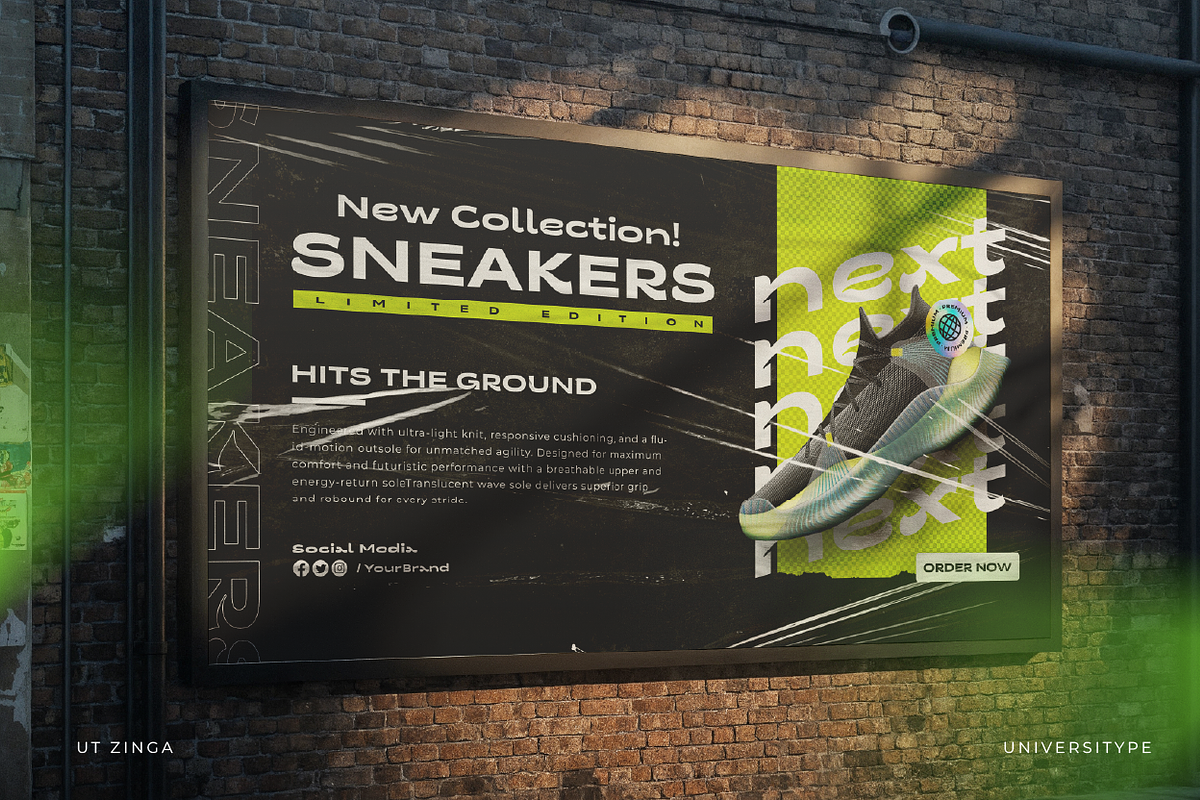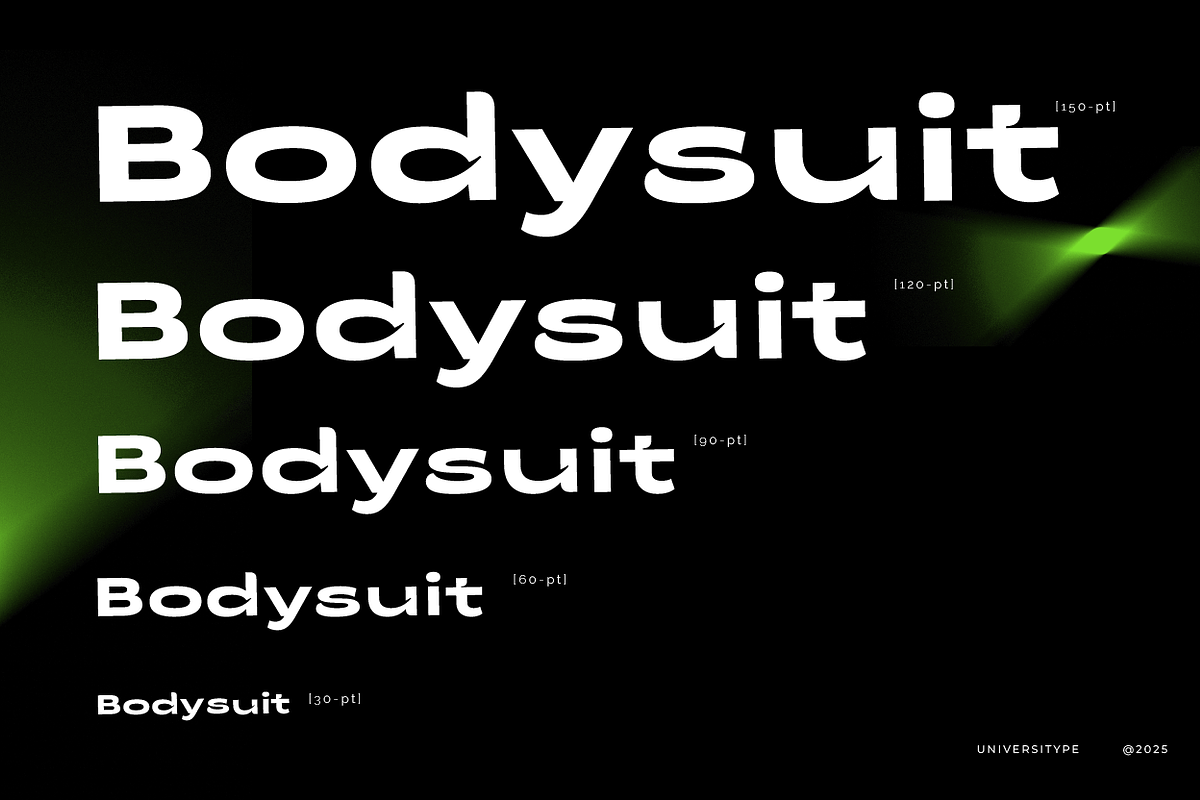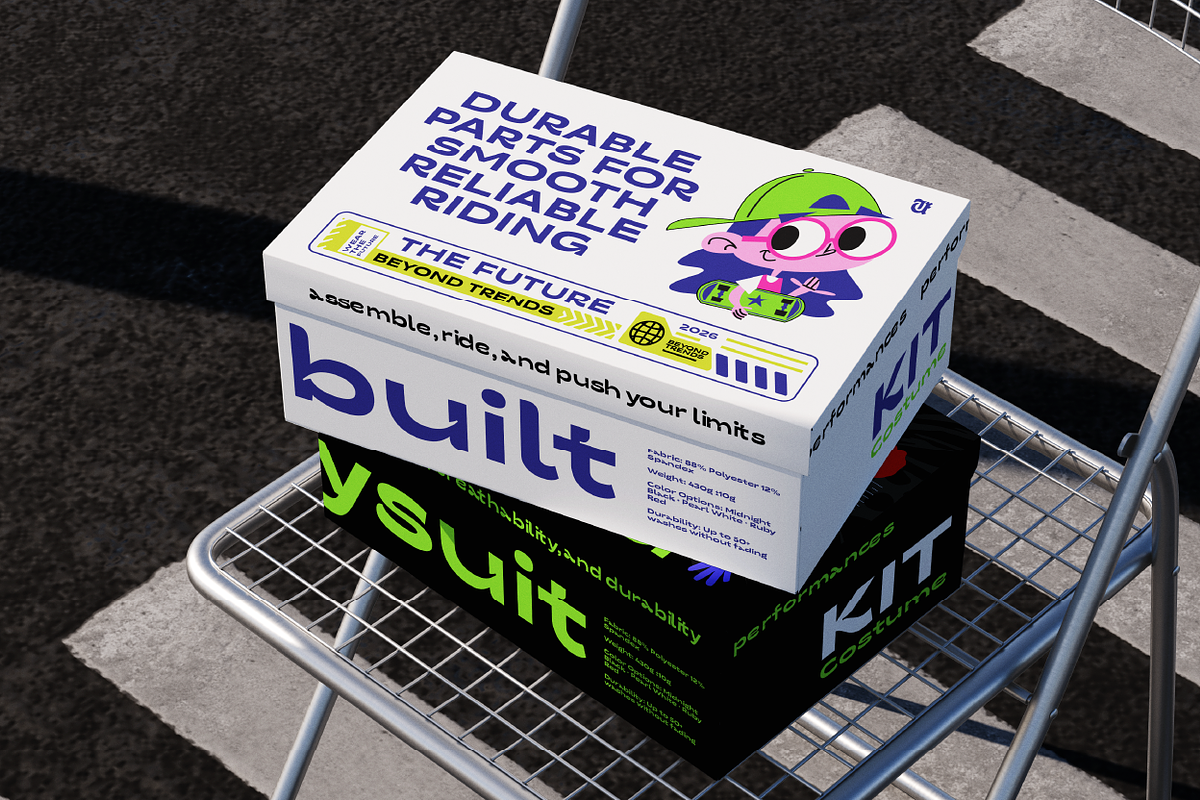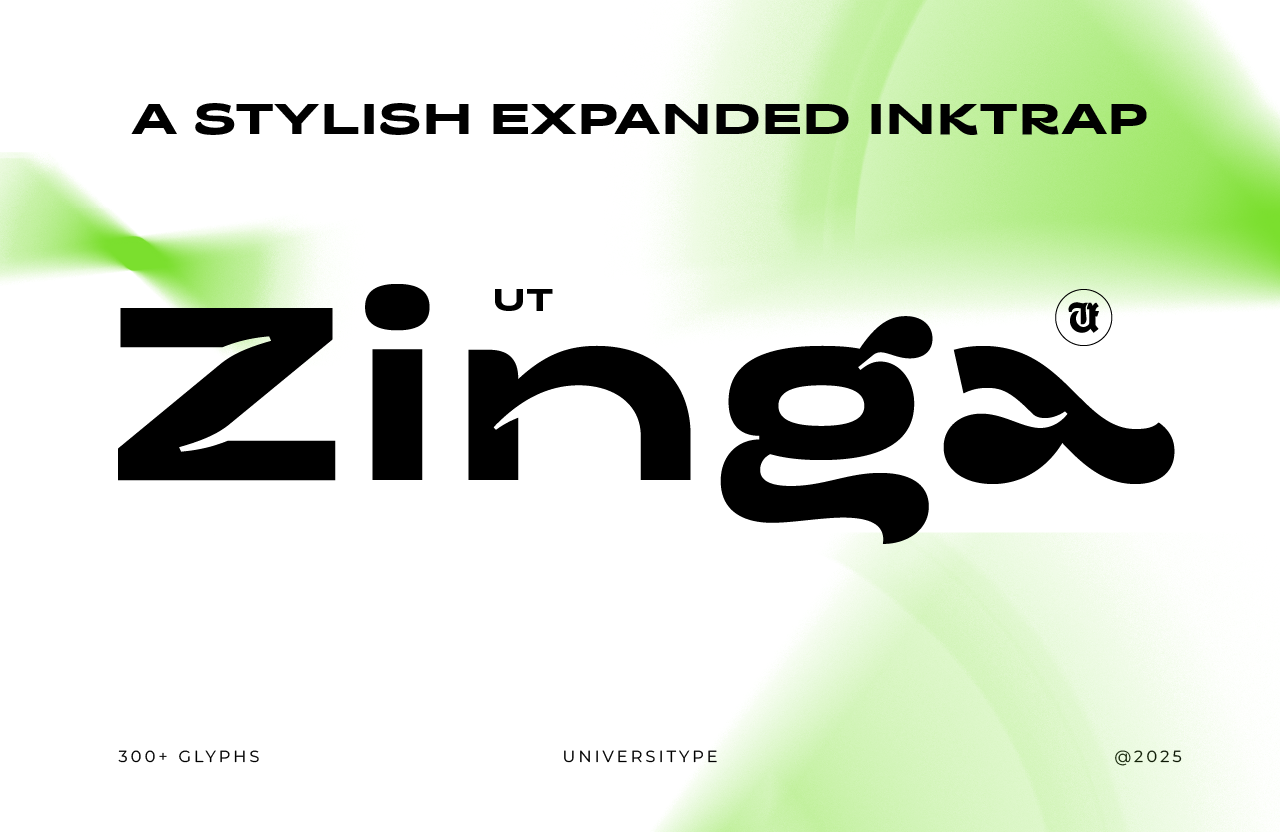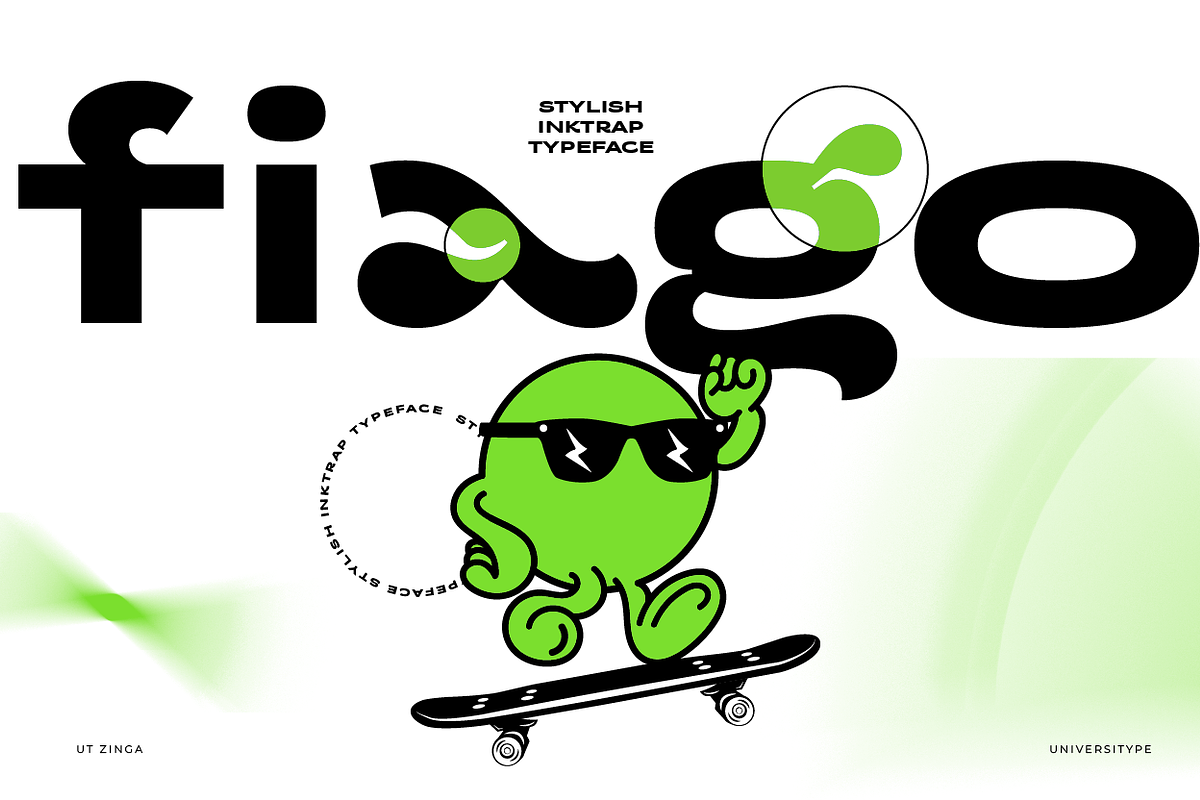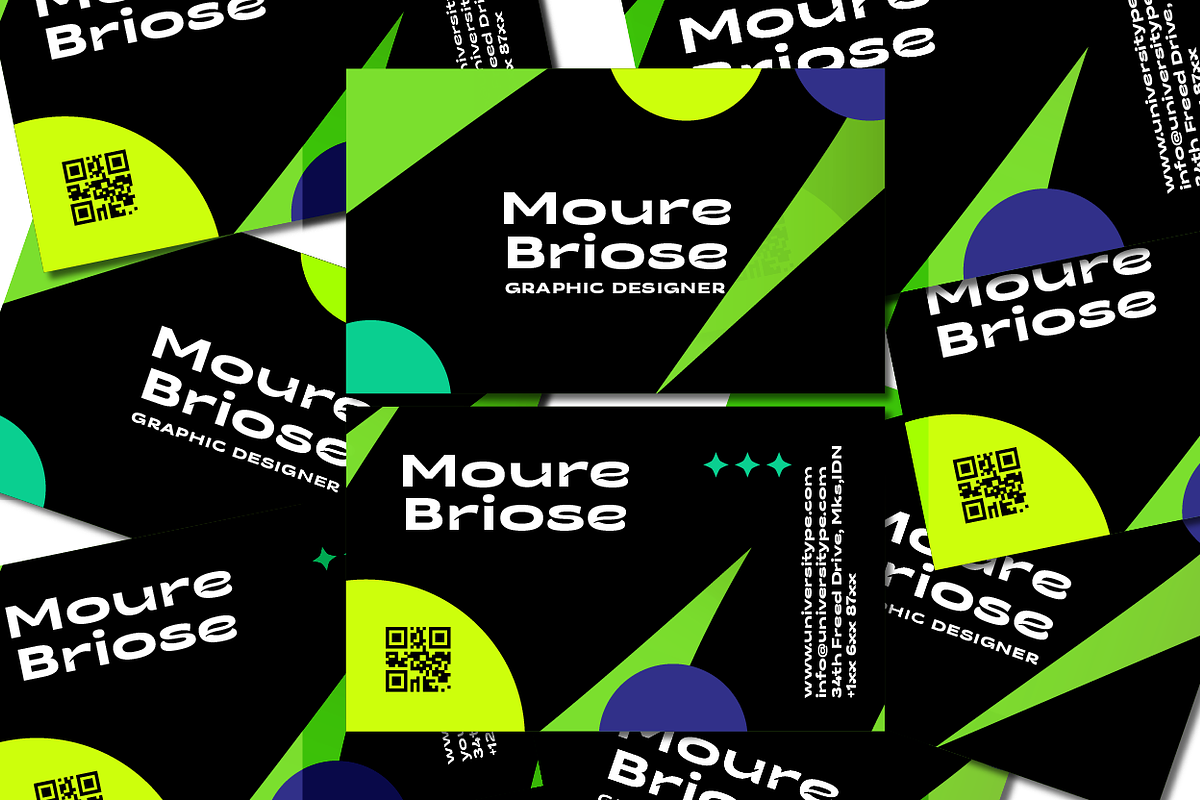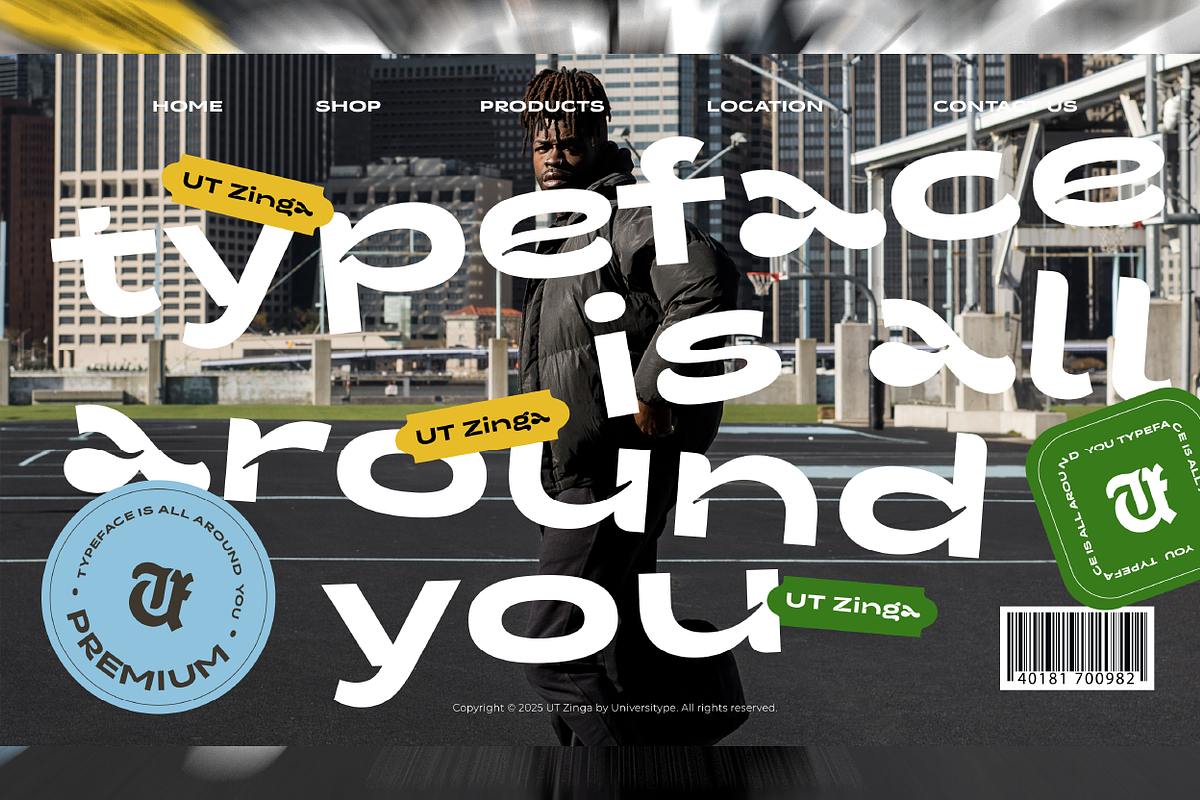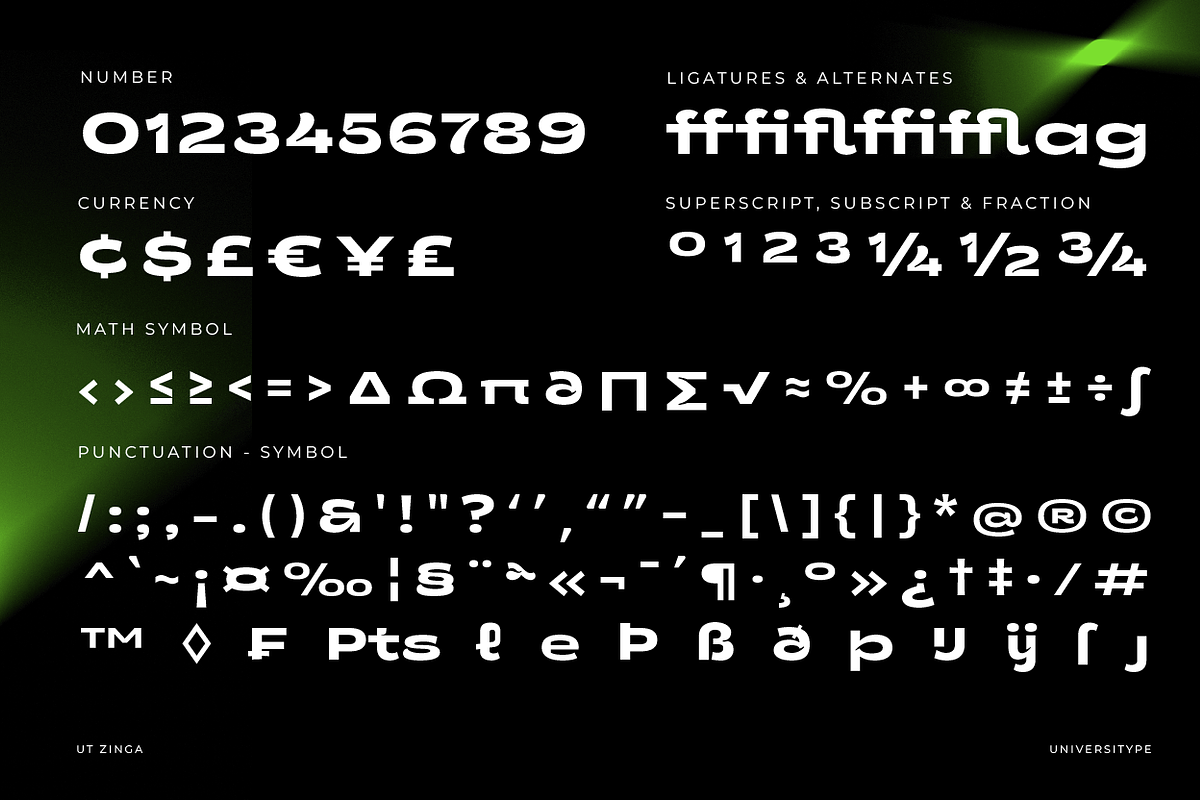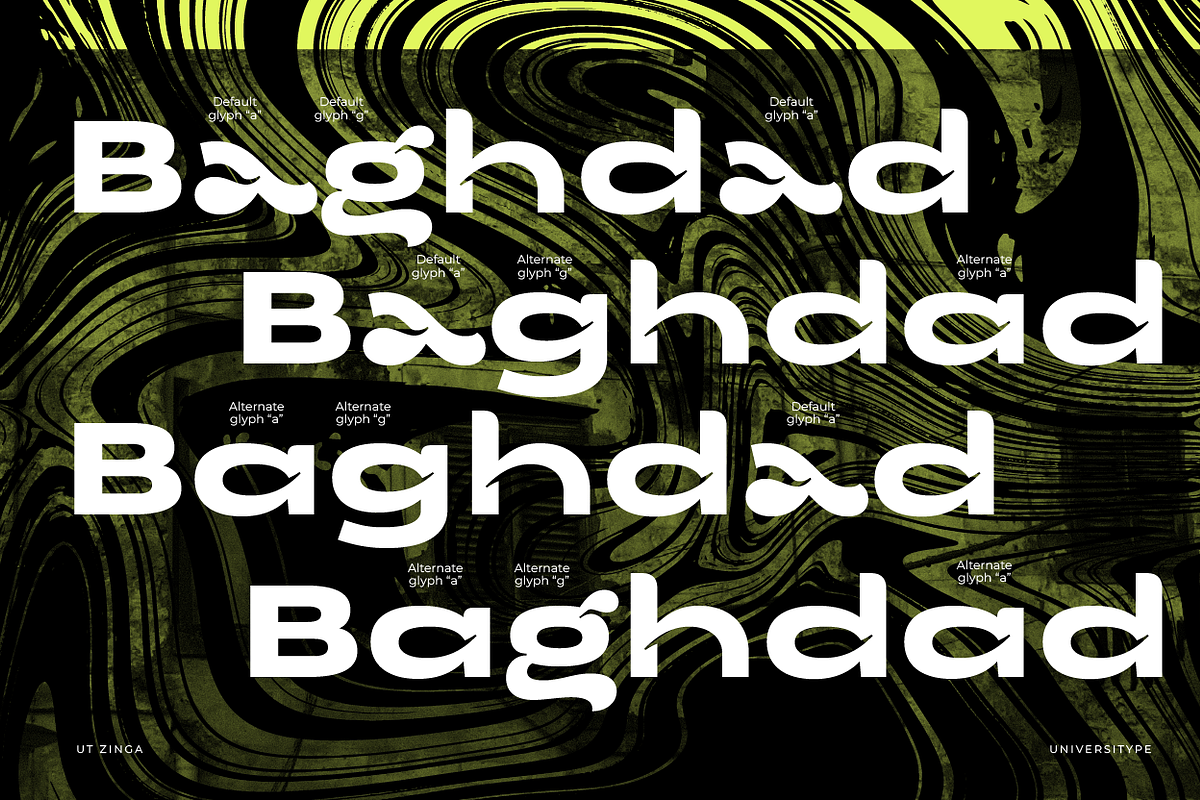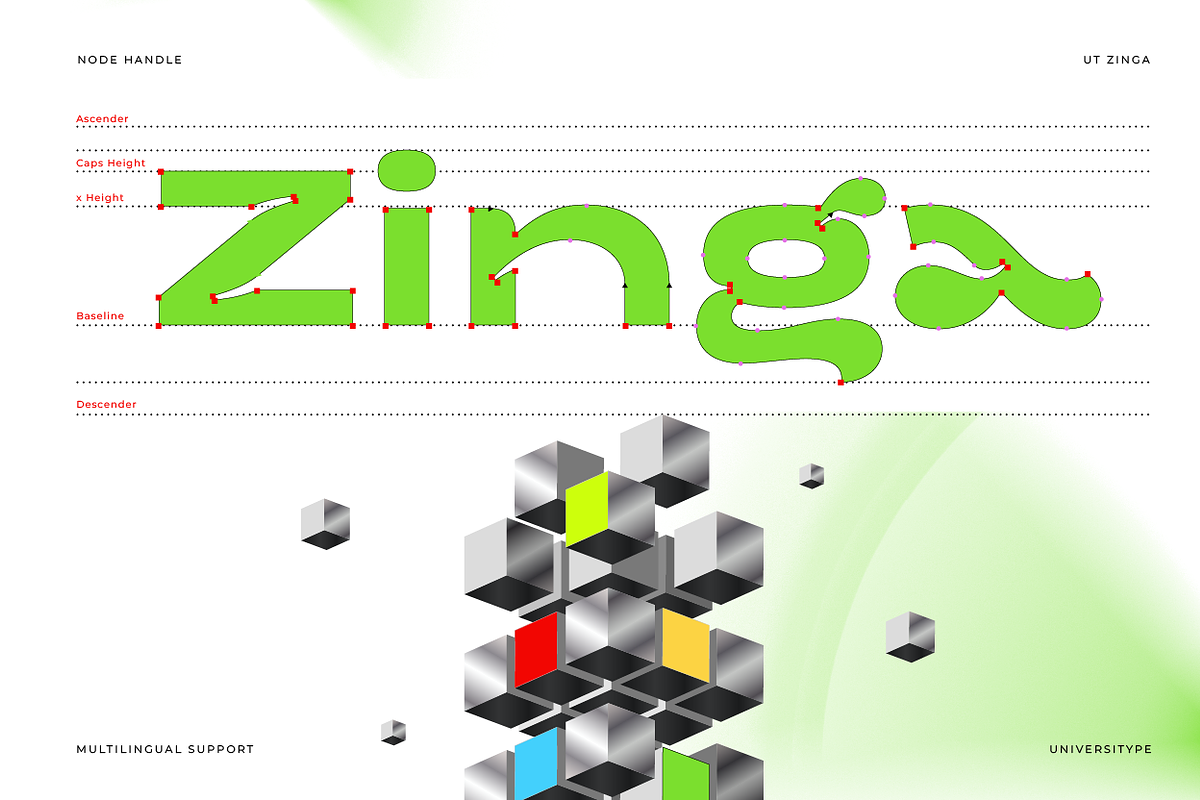
UT Zinga - A Stylish Expanded Font
UT Zinga is a bold display typeface with expanded proportions and sharp inktrap details. Designed to feel strong, sporty, and modern, it delivers high impact while staying clean and readable at large sizes. Perfect for projects that need confidence and visual punch.
Perfect for
- Headlines and titles
- Posters and billboards
- Streetwear and sneaker branding
- Sports, tech, and digital visuals
- Logos and bold graphic layouts